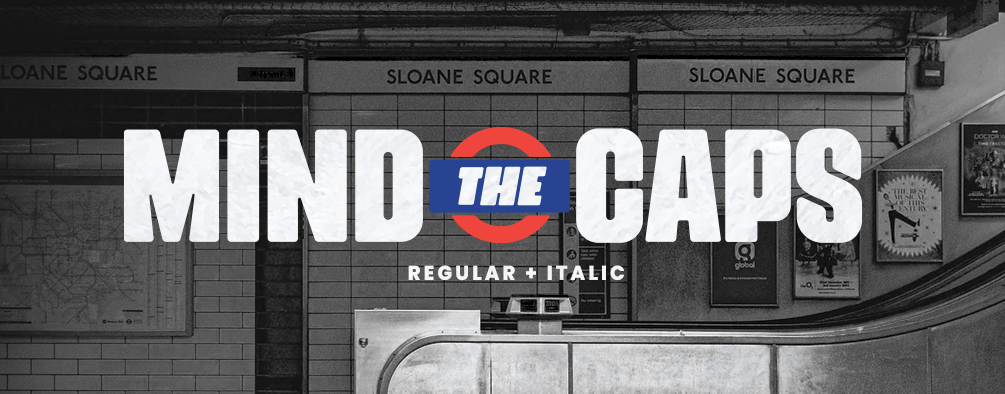
You are about to buy the commercial use and full version of "Mind the Caps" which is our brand new all-caps font. This includes Both the Regular and Italic Style.